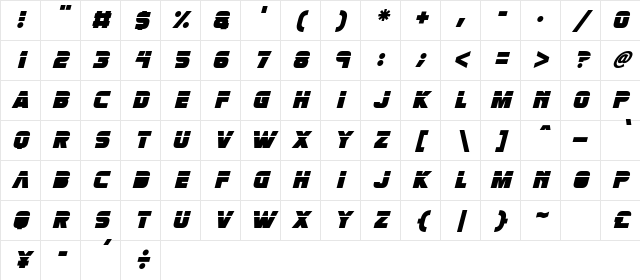
Retronoid Italic Free Font
Retronoid Italic
Design Context for Retronoid
Retronoid wears its vintage influences proudly, with letterforms that recall mid-century signage, classic packaging, and nostalgia-driven design. The slanted form adds forward momentum and visual energy.
Font Pairing: Combine Retronoid with a simple slab or neutral sans - period-accurate companions reinforce the vintage feel without competing for attention.
Pro Tip: Lean into Retronoid's period character by pairing it with aged paper textures, muted colour palettes, and vintage illustration styles.